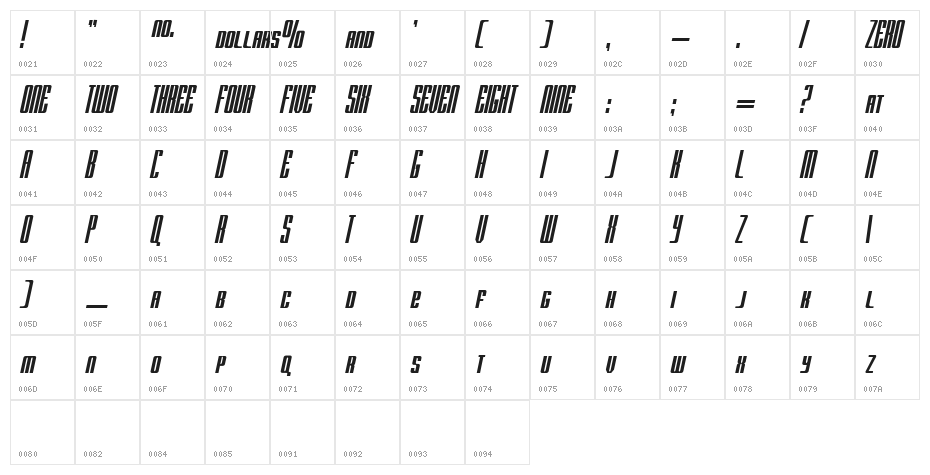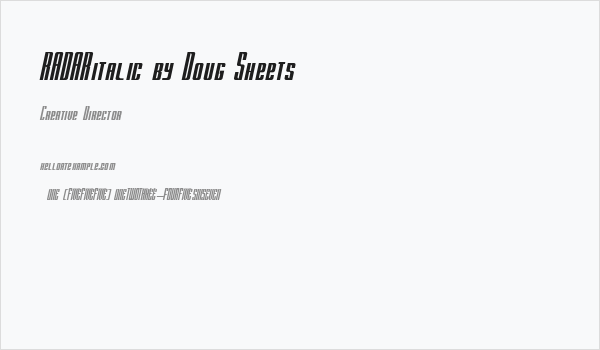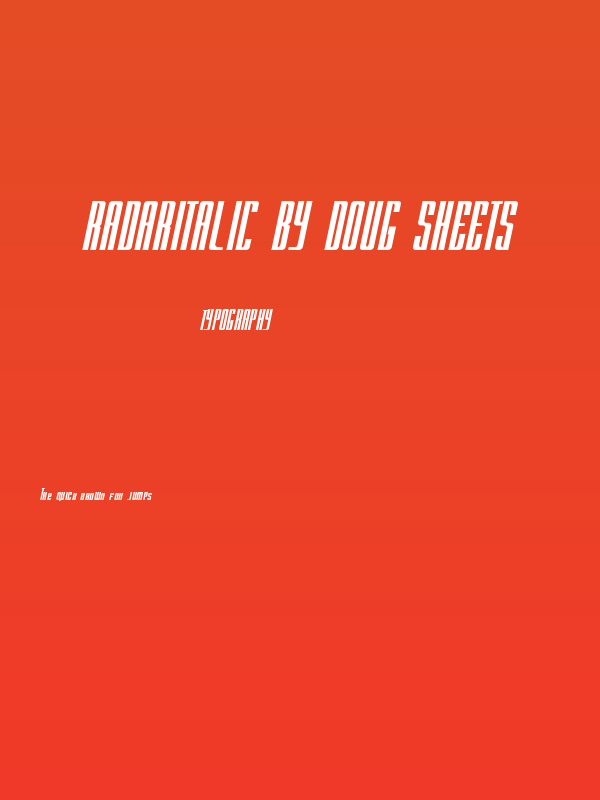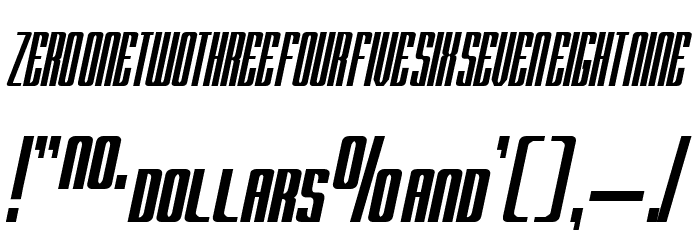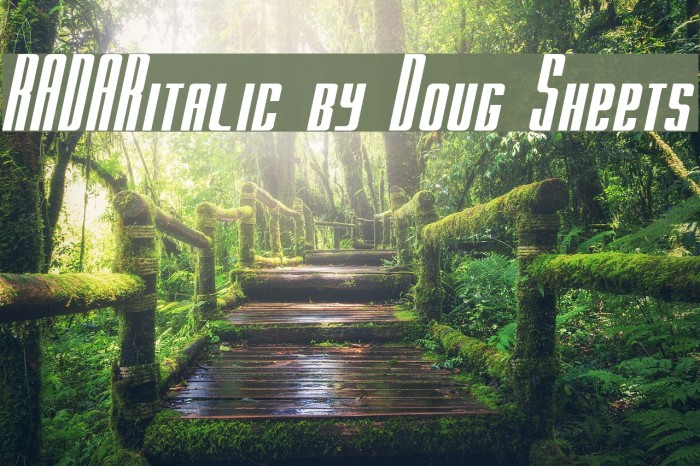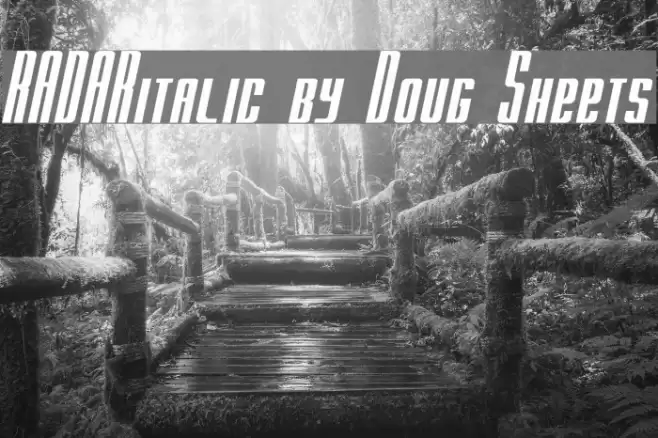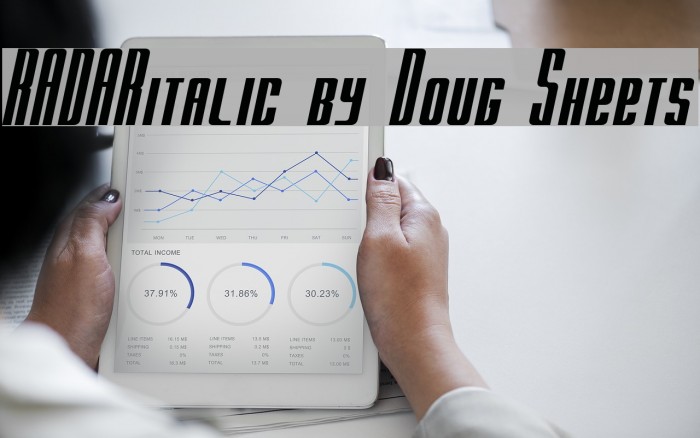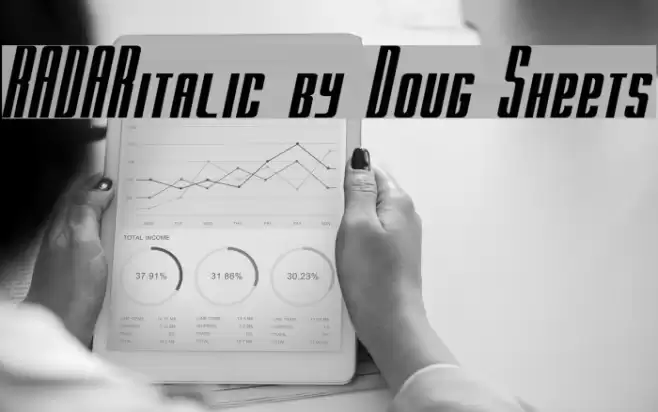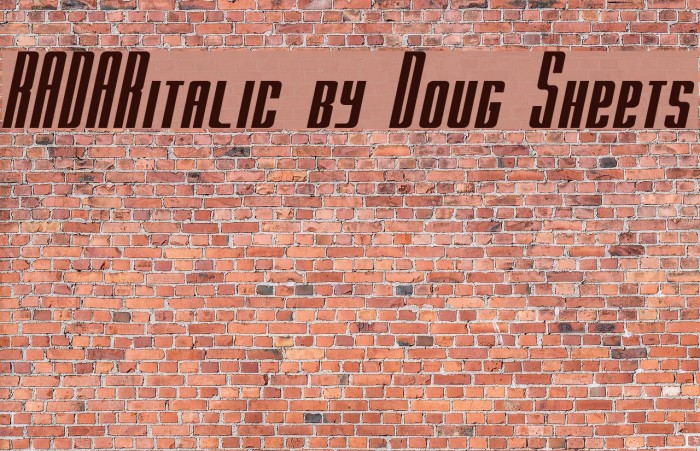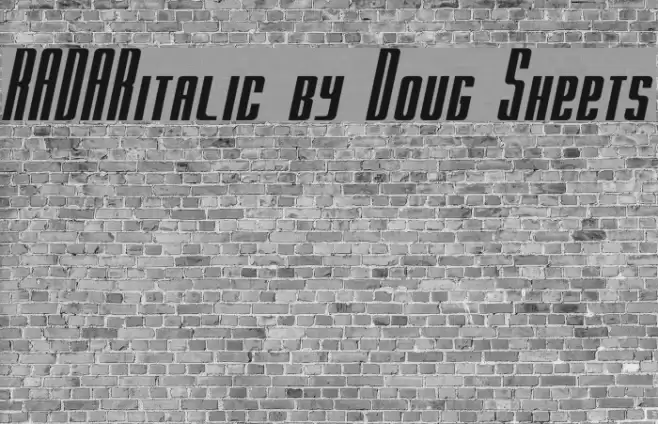
RADARitalic by Doug Sheets Font
RADARitalic by Doug Sheets Description
This font features a bold and dynamic style with a distinct italic slant, giving it a sense of motion and energy. The characters are elongated and condensed, creating a sleek and modern appearance. The uppercase and lowercase letters maintain a consistent style, with sharp angles and clean lines. The numerals and special characters follow the same design principles, ensuring uniformity across all glyphs. The overall aesthetic is futuristic and technical, making it suitable for projects that require a strong visual impact.
| Proposed Projects | Ideal for use in technology branding, sports team logos, dynamic posters, and modern web design. |